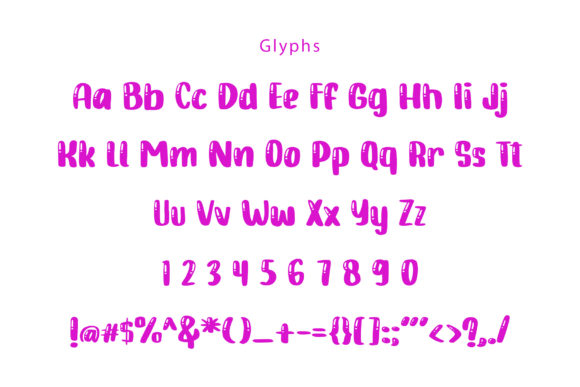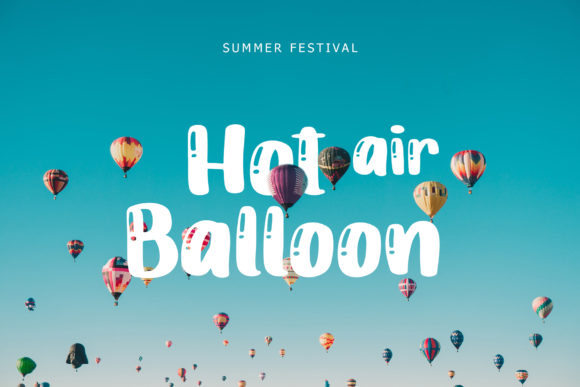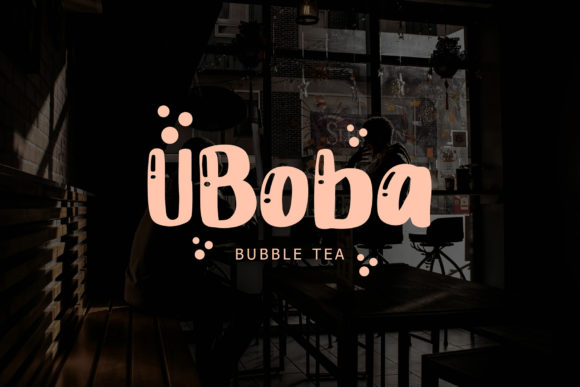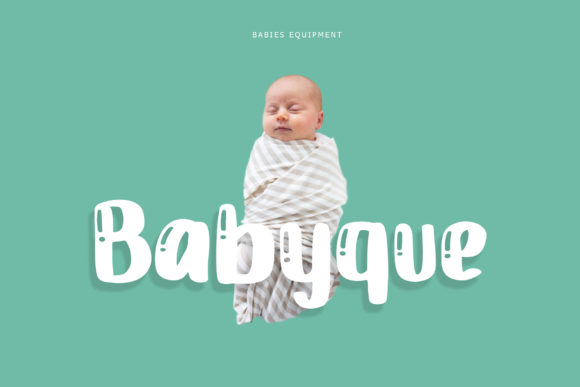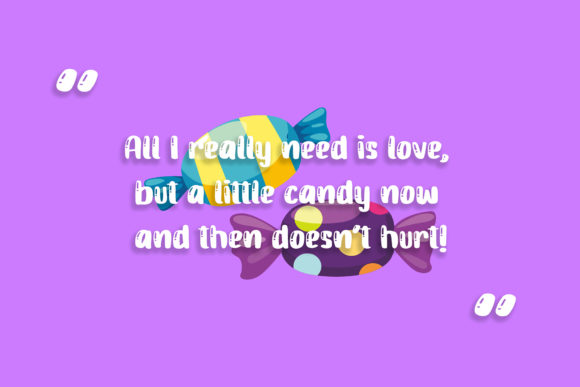
The Sweetest Display Font: A Deep Dive into Candy Jelly
I’ll never forget the time I was working on a kids’ party invitation project, and I just couldn’t find the right font to capture the playful vibe I was going for. The client wanted something fun, bubbly, and engaging, but everything I tried seemed either too boring or too over-the-top. That’s when I stumbled upon Candy Jelly, a cute and fun display font that instantly brought my design to life. In this article, I’ll share my experience with Candy Jelly, and explore its features, uses, and alternatives.
An Honest Review of Candy Jelly
- ✨ Playful and childlike personality: Candy Jelly is perfect for projects that require a fun and carefree vibe.
- ✅ Highly legible: Despite its playful nature, Candy Jelly is surprisingly easy to read, even at smaller sizes.
- 🎉 Versatile: This font is suitable for a wide range of projects, from kids’ party invitations to school projects, and even adult-themed designs.
While Candy Jelly is an amazing font, it’s not perfect. Here are a few things to keep in mind:
- 🤔 Limited use in formal contexts: Due to its playful nature, Candy Jelly might not be the best choice for formal or professional projects.
- ⚠️ Some letters may require adjustment: Depending on the word or phrase, some letters might need to be adjusted to ensure proper spacing and alignment.
- Experiment with OpenType features and glyphs to add more personality to your design.
- Explore stylistic alternates and swashes to add more flair to your design.
The Backstory of Candy Jelly
Candy Jelly was designed by a team of creatives who wanted to create a font that captured the playfulness and joy of childhood. Inspired by colorful candy wrappers, bubblegum, and childhood treats, Candy Jelly is the perfect font for designers who want to add a touch of whimsy to their projects.
Q: What is Candy Jelly’s personality?
A: Candy Jelly is a playful, childlike font perfect for designs that require a fun and carefree vibe.
Q: Is Candy Jelly easy to read?
A: Yes, despite its playful nature, Candy Jelly is surprisingly easy to read, even at smaller sizes.